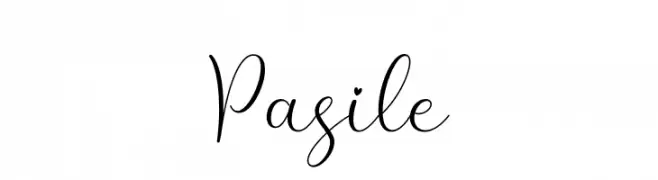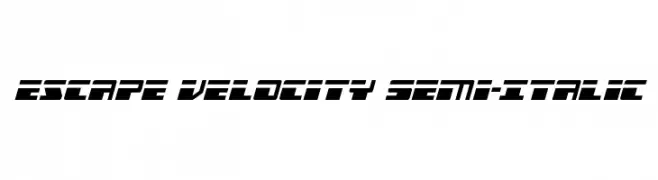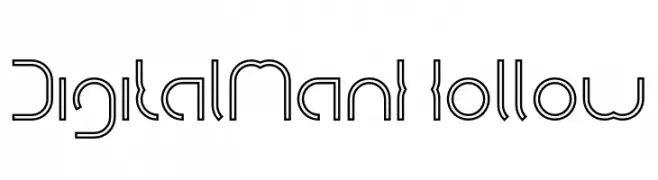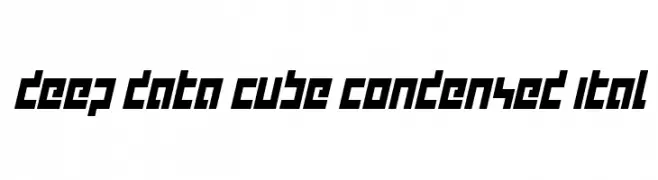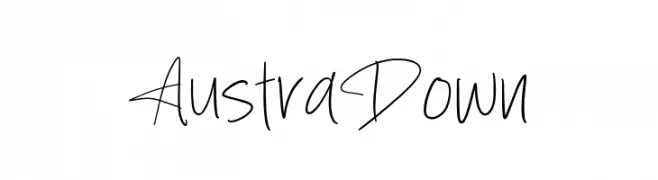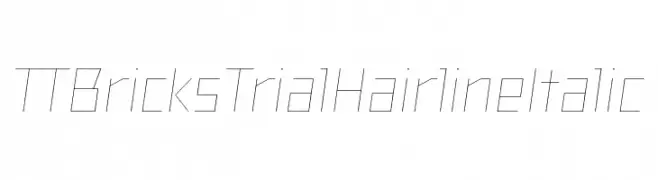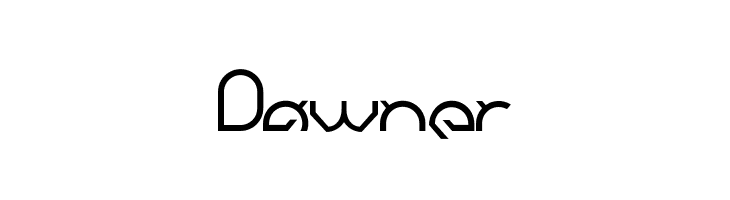
An elegant, flowing script font with graceful cursive letterforms.
A bold, futuristic font with a semi-italic slant and geometric design.
A stylish script font with elegant, flowing cursive strokes.
A bold, modern font with blocky, geometric characters.
A futuristic, hollow, geometric font with clean, continuous lines.
A bold, angular, and futuristic font with a condensed and geometric style.
A lively and expressive handwritten font with fluid, connected strokes.
A casual, handwritten font with a playful and informal style.
A modern, geometric italic font with thin lines and angular shapes.
A modern, 3D italic font with outlined characters and a futuristic style.